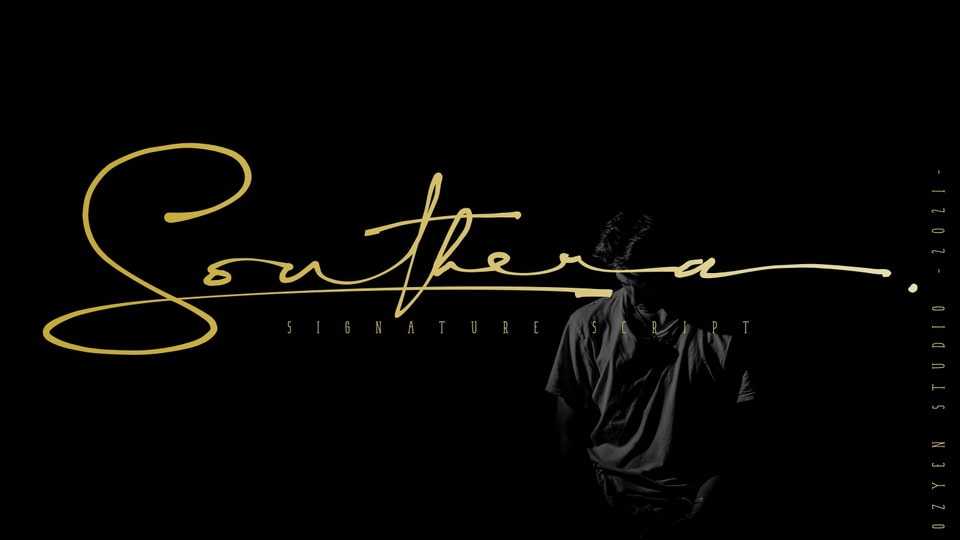
Download Southera font, an elegant and flowing handwritten signature style font. Southera has a clean, thin and smooth vibe and it will be a hit for any design that you want to add it to.
Designer: Mozyen Studio